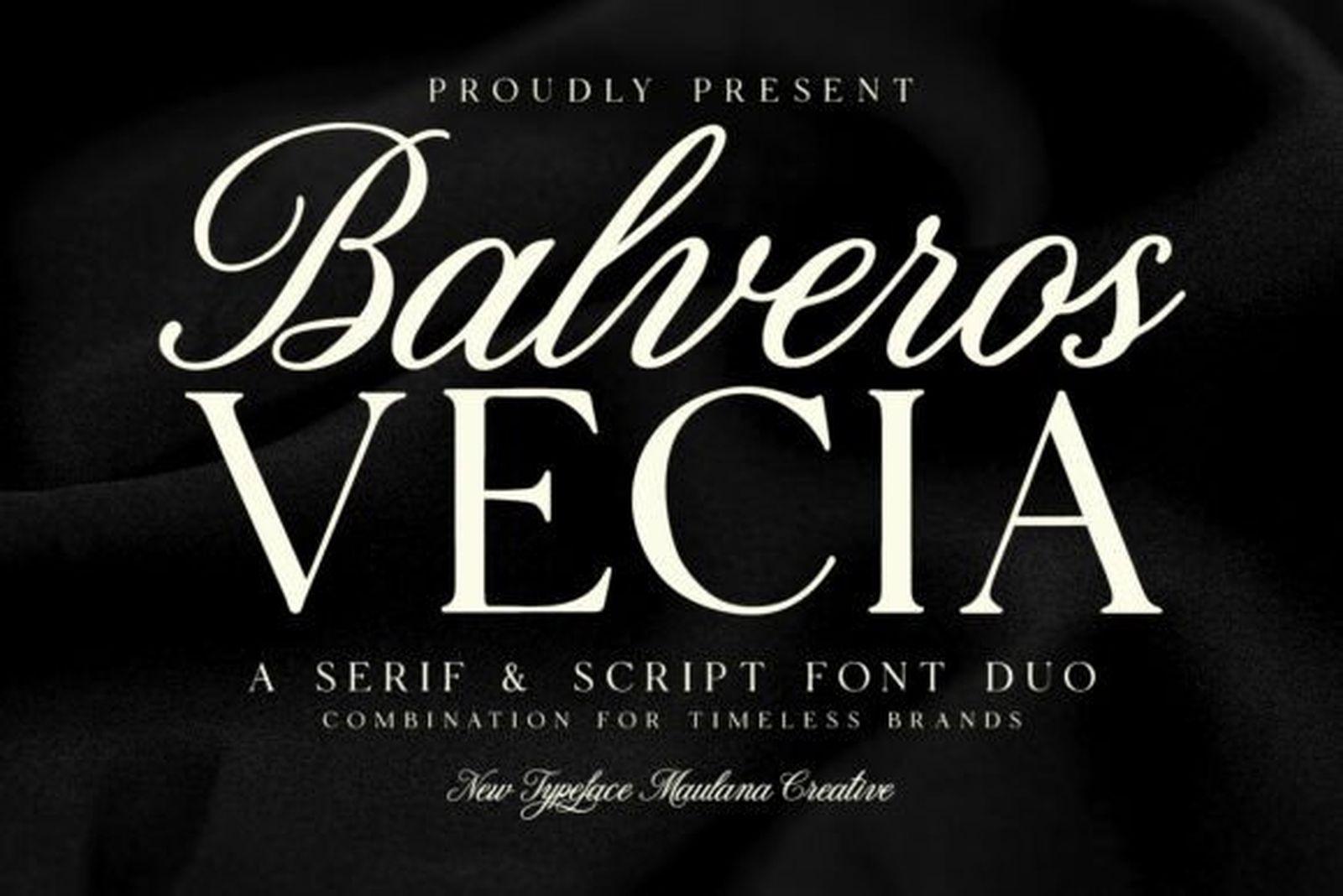
25 Best Font Combinations: Script and Serif Font Pairing Ideas for Weddings
A good font combination does two jobs at once. One style sets the mood, the other keeps the words readable. The easiest way to get that balance right is to start with a pair that was drawn to work together, and that is what this list is: font duos where the script and the serif or sans already share proportions, weight and spacing.
The pairs are grouped by where they work best: script and serif combinations, wedding font combinations, luxury font combinations and modern font combinations with a sans. Each one comes with notes on how to set the headline and the supporting line.
Script and Serif Font Combinations
The classic pairing: a script that carries the feeling and a serif that carries the information. Every duo in this group was drawn as a pair, so the two styles already share proportions and weight, and the scripts have the swashes and tails that make this combination recognizable.
1. Bardguine Serif & Script Duo Font
by letterhend
Best For: retro logos, coffee and bakery labels, handwritten-style invitations
Bardguine Serif & Script Duo Font pairs a heavy retro script with a compact, bold serif. In the preview the script word is set large in dark green with a sweeping tail underneath, while the serif line sits small and tight below it, joined by a gold ampersand.
The two halves have similar weight, which is why the pair feels solid rather than delicate. Use the script for the name and the serif for one short line of detail. It is a natural fit for a logo lockup where both parts have to hold up at a small size.
Bardguine Serif and Script Duo Font by letterhend, font combination preview
2. Balveros Vecia Font
by Maulana Creative
Best For: wedding invitations, boutique brands, black and cream stationery
Balveros Vecia Font combines a flowing, calligraphic script with high-contrast serif capitals. The preview sets both in cream on black, and the author describes it as a serif and script font duo for timeless brands.
The capitals are tall and sharp, and the script is slanted and elegant, so the contrast between them is strong without either one fighting for attention. Set the script as the main word and let the capitals sit underneath with generous letter spacing.
Balveros Vecia Font by Maulana Creative, font combination preview
3. Just Married Duo Font
by inkyjar
Best For: save the dates, wedding signage, minimal photography logos
Just Married Duo Font is a thin monoline script with long, looping entry and exit strokes, paired with widely spaced serif capitals. The preview shows the script sweeping across a soft wedding photo, with the words script and serif set in small caps below.
The script is light, so it needs space around it. It works best large and short, one or two words, with the serif caps doing the supporting job. The preview also mentions premade logos included with the set.
Just Married Duo Font by inkyjar, font combination preview
4. Hello Marsmallow Duo Font
by Dani (7NTypes)
Best For: summer invitations, beauty labels, overlapping title designs
Hello Marsmallow Duo Font sets tall, condensed serif capitals behind a thin, casual script that runs right across them. The preview uses white and dark grey on a bright sky blue, which makes the overlap easy to read.
The layered layout is the reason to pick it. The narrow capitals leave room for the script to cross them without covering the letters. Try the same stack on a light background with the script in a darker color.
Hello Marsmallow Duo Font by Dani (7NTypes), font combination preview
5. East Boston Font
by vintype
Best For: logos with a signature line, restaurant menus, monochrome branding
East Boston Font pairs classic serif capitals with a fine script that threads through the middle of the word, finished with long horizontal swashes on both sides. The preview keeps it simple: white on dark grey.
The swashes act almost like a rule line, so the pair can hold a logo together without any extra graphic. Keep the colors to one or two, because the fine script disappears on busy backgrounds.
Pick the Pair by the Job
Start from what you are making, not from the prettiest script. For an invitation, choose a pair where the serif is easy to read at a small size. For a logo, look for a pair with a strong weight contrast. For packaging and posters, try a sans pair. Open two or three duos from the matching group, set your real words in them, and keep the one that still reads clearly at the size it will be printed.